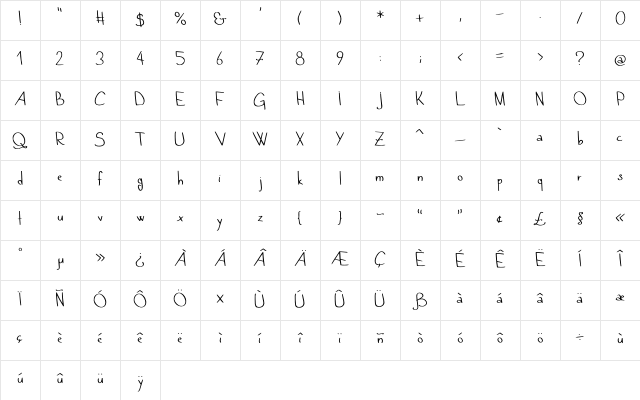
Quand tu dors ... Medium Free Font
Quand tu dors ... Medium
Design Context for Quand tu dors ...
Quand tu dors ... is a composed and adaptable typeface that performs quietly and consistently across a wide range of design contexts.